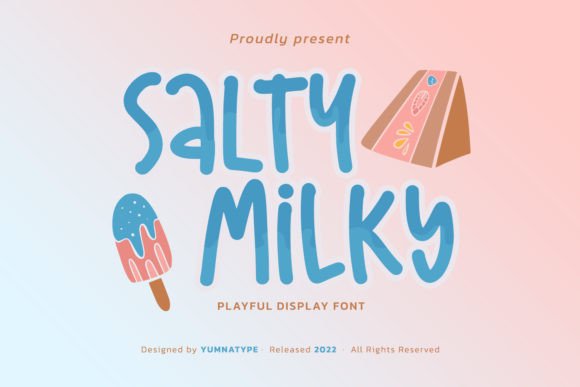
Prepare to be tantalized by Salty Milky, the font that exudes charm and boldness! This display font is a masterpiece crafted to elevate your designs with its captivating presence. Immerse yourself in a world of playful and charismatic expressions, where every letter dances with its own unique charm.
Salty Milky's uneven proportions and artistic forms ignite a spark of creativity within you. Its thick weights demand attention, making it the perfect choice for headlines, posters, and packaging that crave a captivating presence. Unleash your imagination and let the playful spirit of Salty Milky infuse your designs with an unforgettable charm.
Don't settle for ordinary fonts. Embrace the exceptional with Salty Milky, the font that transforms your typography into a delightful adventure. Whether you're creating eye-catching invitations, branding materials that radiate personality, or social media posts that ignite engagement, Salty Milky will captivate your audience and leave a lasting impression.
Indulge in the versatility of Salty Milky and witness how its enchanting forms elevate your designs. Let the playful charm of Salty Milky be your secret weapon for captivating creations that resonate with your audience. Dive into a world of bold expressions and let Salty Milky guide you towards typographic excellence.